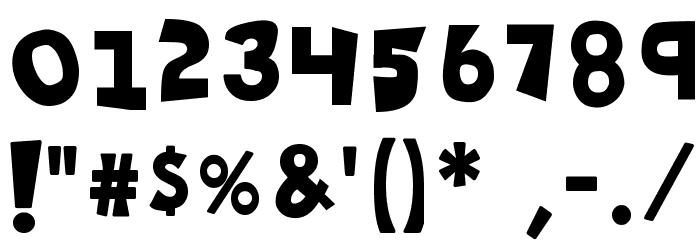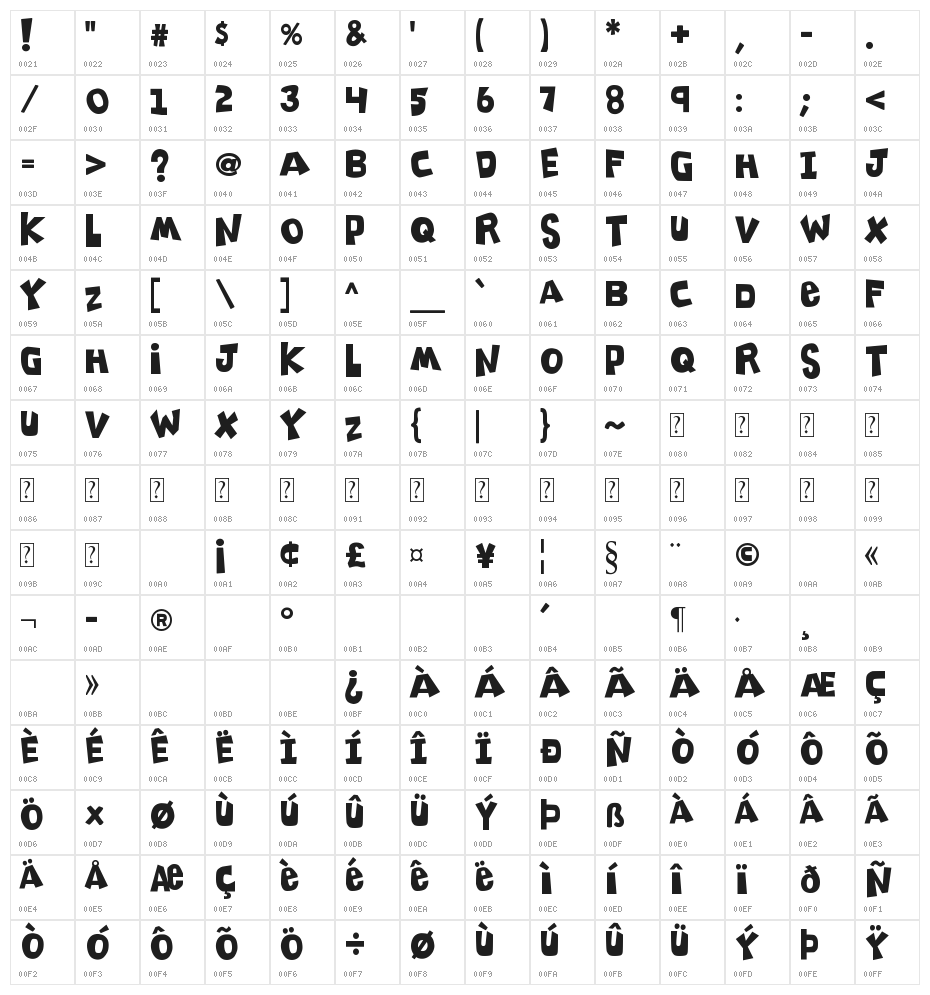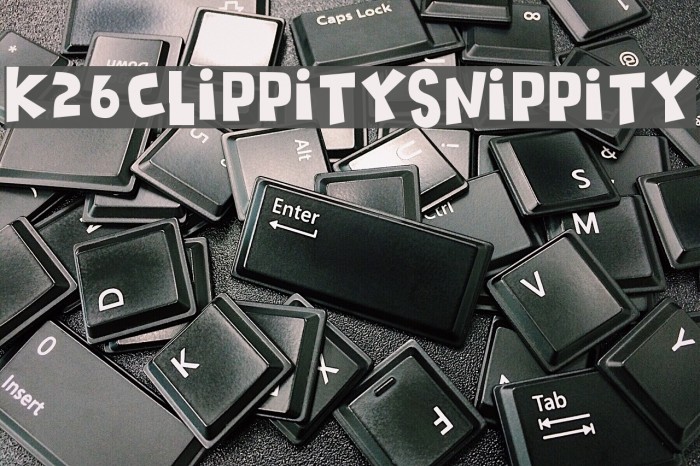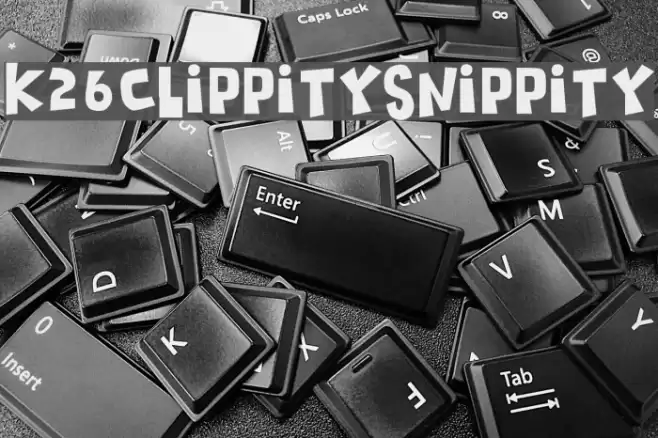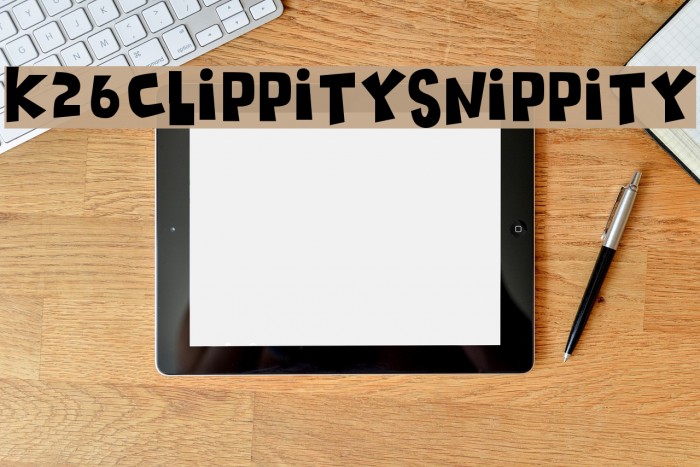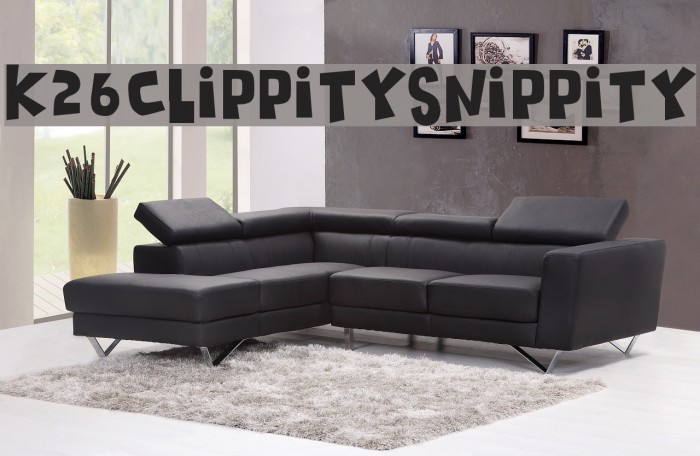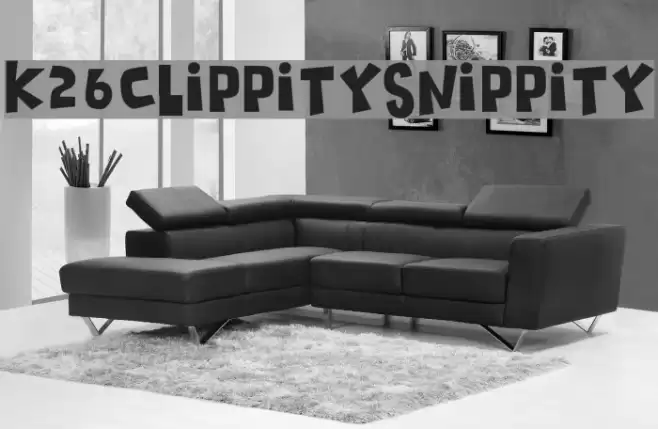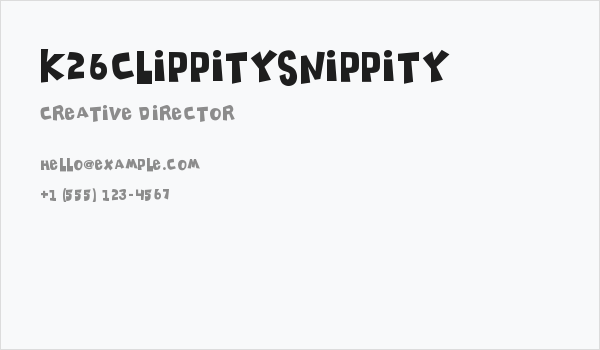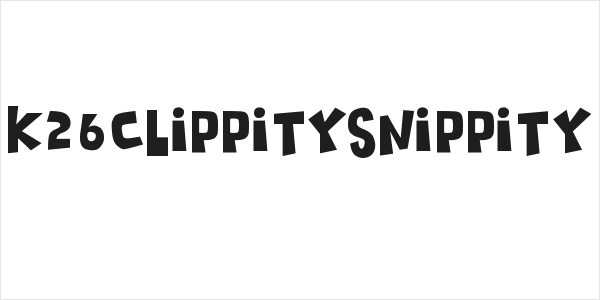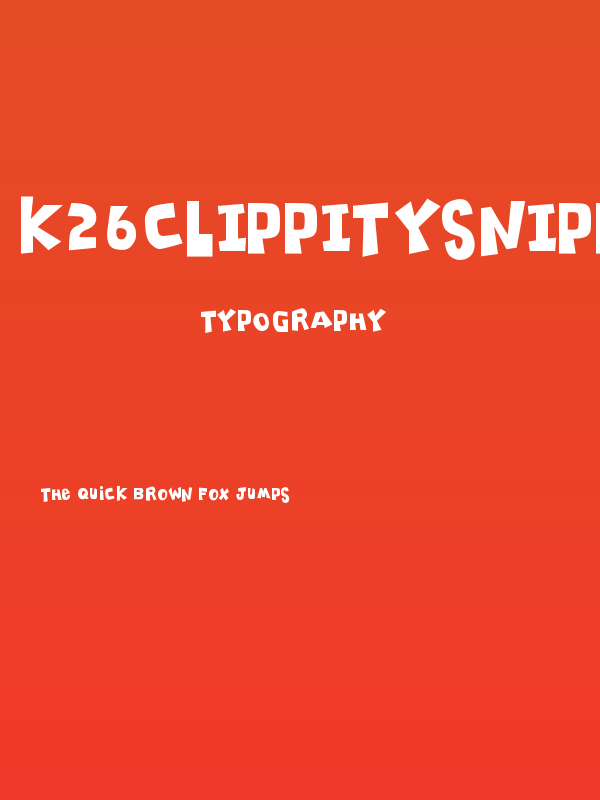
K26ClippitySnippity Font
K26ClippitySnippity Description
This playful and quirky font features bold, uneven strokes that give it a lively and whimsical appearance. The characters are slightly irregular, with varying angles and widths, creating a sense of movement and fun. The uppercase and lowercase letters maintain a consistent style, while the numbers and special characters complement the overall design. This font's unique personality makes it ideal for projects that require a touch of humor or creativity.